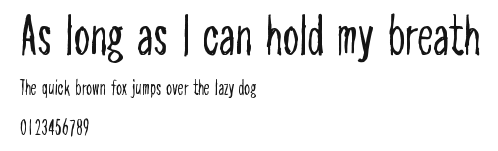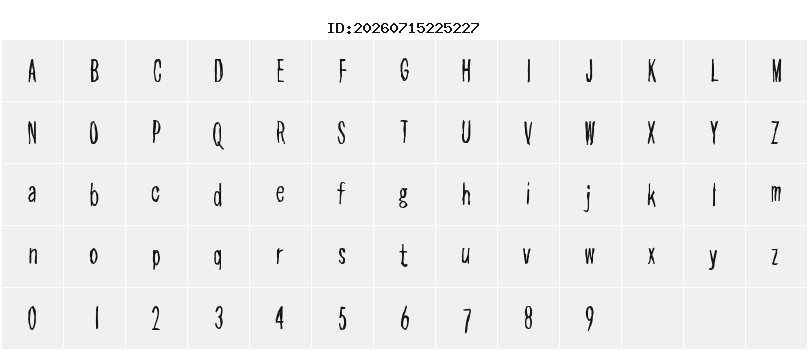
As long as I can hold my breath Preview
• Font Name: As long as I can hold my breath
• Full Font Name: As long as I can hold my breath
About As long as I can hold my breath.ttf
As long as I can hold my breath.ttf is a modern, elegant sans-serif font designed for ultimate readability and visual harmony. Perfect for branding, headlines, web design, and print materials.